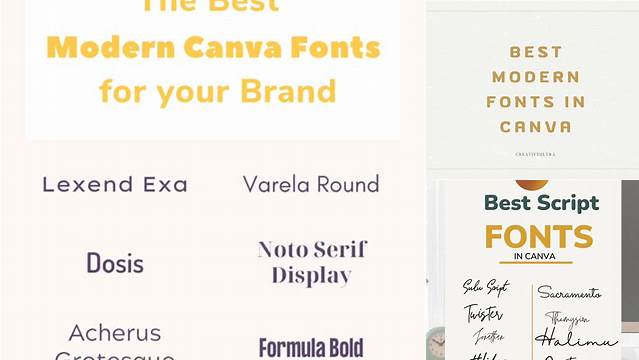
Bold Modern Fonts: Design Guide For Canva
Introduction: Unleash Your Creativity with Bold Modern Fonts
Hey guys! Are you ready to dive into the world of typography and discover how bold modern fonts can transform your designs in Canva? Typography is more than just choosing a pretty typeface; it's about conveying a message, evoking emotions, and creating a visual hierarchy that guides the viewer's eye. In Canva, the right font can make all the difference, turning a good design into a great one. Whether you're crafting social media graphics, designing presentations, or creating marketing materials, selecting the perfect font is crucial. Bold fonts, in particular, are fantastic for making a statement, grabbing attention, and adding a touch of contemporary flair to your projects. They command attention and convey confidence. In this article, we'll explore some of the best bold modern fonts available in Canva, discuss how to effectively use them, and provide practical tips for incorporating them into your designs. We’ll also look at font pairings, which is a critical aspect of design harmony. Combining a bold font with a lighter, more subtle typeface can create a dynamic contrast that enhances readability and visual appeal. So, buckle up, and let's explore the exciting realm of bold modern fonts in Canva to elevate your design game!
Why Choose Bold Fonts for Your Designs?
Why should you even bother with bold fonts in the first place? Well, think of it this way: your design is a stage, and your text is the star performer. Bold fonts are like the lead actor—they demand attention, command the scene, and deliver the key messages with impact. Bold fonts are incredibly versatile and can be used in various design contexts. They are perfect for headlines, titles, and call-to-action buttons, where you want to make a strong statement. Imagine a poster for a music festival; a bold font can shout out the headliner's name and instantly grab your attention. Or think about a website’s hero section, where a bold headline can convey the brand’s core message within seconds. Beyond grabbing attention, bold fonts also play a crucial role in creating visual hierarchy. In any design, you want to guide the viewer’s eye through the information in a logical order. By using bold for the most important elements, you can instantly signal their significance. This helps the viewer quickly understand the main points and navigate the design effectively. Moreover, bold fonts add a touch of modernity and sophistication to your designs. They often have clean lines and strong forms, making them ideal for contemporary aesthetics. Whether you're designing for a tech startup, a fashion brand, or a creative agency, incorporating bold modern fonts can give your work a cutting-edge feel. So, if you're looking to make a statement, establish a clear visual hierarchy, and infuse your designs with a modern vibe, bold fonts are definitely your go-to choice. They're not just about making text bigger; they're about making your message stronger.
Top Bold Modern Fonts Available in Canva
Okay, let's get to the fun part – diving into the best bold modern fonts that Canva has to offer! Canva's font library is a treasure trove, packed with options that can cater to any design style. But with so many choices, it can be a tad overwhelming. That's why we've curated a list of some standout bold fonts that are perfect for modern designs. First up, we have Montserrat. This is a geometric sans-serif font that exudes contemporary elegance. Its clean lines and strong presence make it an excellent choice for headlines, logos, and branding materials. The bold version of Montserrat is particularly impactful, giving your text a confident and assertive feel. Next, there's Oswald, another fantastic sans-serif option. Oswald has a slightly condensed look, which makes it great for fitting more text into tight spaces without sacrificing readability. Its bold variant is perfect for headlines and subheadings, adding a touch of sophistication to your designs. If you're looking for something with a bit more character, check out Raleway. This elegant sans-serif font has a distinctive style with slightly elongated letterforms. The bold version of Raleway is both stylish and impactful, making it suitable for a variety of design projects, from websites to print materials. For a font that's both modern and approachable, Lato is an excellent choice. Its semi-rounded details give it a friendly feel, while its strong structure ensures readability. The bold version of Lato is perfect for body text, headlines, and everything in between. And let's not forget Poppins, a geometric sans-serif font that's incredibly versatile. Its clean, minimalist design makes it a great option for a wide range of projects. The bold version of Poppins is particularly effective for making a statement without being overly assertive. These are just a few of the many amazing bold modern fonts available in Canva. Each font has its unique personality and strengths, so experiment with them to find the perfect fit for your designs.
How to Effectively Use Bold Fonts in Your Designs
Now that we've explored some amazing bold fonts, let's talk about how to use them effectively. Slapping a bold font on everything won't magically make your design look amazing – it's all about strategy and balance. The key to using bold fonts effectively is to use them sparingly and strategically. Overusing bold fonts can actually diminish their impact and make your design look cluttered and overwhelming. Instead, focus on using bold to highlight key elements and create a clear visual hierarchy. Think of bold fonts as your design's spotlight. You want to shine that spotlight on the most important parts of your message, like headlines, titles, and calls to action. For example, in a poster design, the headline should definitely be in a bold font to grab attention. In a website layout, use bold for section titles to help users quickly scan the page. Another crucial aspect of using bold fonts is font pairing. A bold font rarely works well on its own; it needs a supporting cast of other fonts to create a harmonious design. The general rule of thumb is to pair a bold font with a lighter, more neutral font for body text. This creates a contrast that makes the bold elements stand out while ensuring that the overall text is easy to read. For instance, you might pair a bold Montserrat headline with a regular Lato body text. This combination gives you a clean, modern look with excellent readability. Consider the context of your design when choosing a bold font. The message you're trying to convey and the overall tone of your design should influence your font choice. A very bold, aggressive font might be perfect for a rock concert poster, but it would be out of place in a brochure for a spa. Think about the emotions and associations that different fonts evoke and choose one that aligns with your brand and message. Finally, always pay attention to readability. While bold fonts are great for grabbing attention, they can become tiring to read in large blocks of text. Use them judiciously and make sure your overall design is easy on the eyes. Adjust the font size, line height, and letter spacing to optimize readability and ensure that your message comes across clearly. By following these tips, you can harness the power of bold fonts to create designs that are both visually striking and highly effective.
Font Pairing: Combining Bold Fonts with Other Styles
Font pairing is the secret sauce that elevates a good design to a fantastic one. It's all about finding the perfect harmony between different typefaces to create a visual symphony. When it comes to bold fonts, pairing them effectively is crucial because they have such a strong presence. You need to balance that boldness with other fonts that complement and enhance, rather than compete with, the bold elements. The most common and effective strategy for font pairing with bold fonts is to use a high-contrast approach. This means pairing your bold font with a lighter, more neutral font. The contrast in weight and style creates visual interest and helps establish a clear hierarchy. For example, a bold sans-serif font like Montserrat Bold pairs beautifully with a lighter sans-serif font like Open Sans Regular. The bold Montserrat commands attention in headlines, while the Open Sans provides a clean and readable body text. Another great combination is pairing a bold serif font with a sans-serif font. Serifs often have a more traditional and elegant feel, while sans-serifs are typically more modern and minimalist. This contrast can add sophistication and depth to your design. Consider pairing a bold serif like Playfair Display Bold with a sans-serif like Lato Regular. The Playfair Display adds a touch of elegance to headings, while Lato ensures readability in the body text. Within the same font family, you can also create effective pairings by using different weights and styles. For instance, you might use a bold version of a font for headlines and a regular or light version for body text. This creates a cohesive look while still maintaining visual hierarchy. Experimenting with different font sizes and spacing is another key aspect of font pairing. Make sure your bold elements are sized appropriately to stand out, but not so large that they overwhelm the other text. Adjust the line height and letter spacing to ensure readability and create a visually pleasing layout. Ultimately, the best way to master font pairing is through experimentation and practice. Try out different combinations, see what works, and don't be afraid to break the rules. The goal is to create a design that is both visually appealing and highly effective in communicating your message. By understanding the principles of font pairing, you can make your bold fonts truly shine and create designs that leave a lasting impression.
Practical Tips for Using Bold Modern Fonts in Canva
Alright, let's get down to the nitty-gritty with some practical tips for using bold modern fonts in Canva. Canva is a fantastic tool, but like any design software, it's all about knowing the tricks of the trade to get the best results. So, here are some actionable tips to help you make the most of bold fonts in your Canva projects. First and foremost, always start with a clear understanding of your design goals. What message are you trying to convey? Who is your target audience? The answers to these questions will help guide your font choices. A bold font that works for a tech startup might not be the best fit for a children's book. Think about the overall tone and style you want to achieve and select fonts that align with that vision. When you're working in Canva, take advantage of the platform's font preview feature. Canva allows you to quickly see how a font will look in your design without having to commit to it. This is invaluable for experimenting with different bold fonts and font pairings. Try out several options and see which ones resonate with you. Don't be afraid to mix and match! Canva also offers a wide range of templates that can serve as a great starting point for your designs. Many of these templates already incorporate bold fonts effectively, giving you a sense of how they can be used in different contexts. Feel free to adapt these templates to your own needs, but pay attention to the font choices and why they work. Another pro tip is to use Canva's text formatting options to fine-tune your bold fonts. Adjust the font size, line height, letter spacing, and text alignment to create a polished and professional look. These small tweaks can make a big difference in the overall impact of your design. Pay attention to the color of your bold fonts as well. Color can have a significant impact on how a font is perceived. A bold font in a vibrant color will stand out even more, while a bold font in a more muted color can create a sense of understated elegance. Consider the color palette of your design and choose font colors that complement it. Finally, always get feedback on your designs. Share your work with others and ask for their opinions on your font choices. Fresh eyes can often spot things you might have missed, and constructive criticism can help you refine your designs and make them even better. By following these tips, you'll be well on your way to mastering the art of using bold modern fonts in Canva.
Conclusion: Embrace the Power of Bold Fonts in Your Designs
So, guys, we've reached the end of our journey into the world of bold modern fonts in Canva! We've explored why bold fonts are so effective, looked at some top font choices, discussed how to use them strategically, and shared practical tips for making them shine in your designs. The key takeaway here is that bold fonts are a powerful tool in your design arsenal. They're not just about making text bigger; they're about making your message stronger, clearer, and more impactful. Whether you're designing social media graphics, presentations, websites, or marketing materials, bold fonts can help you grab attention, establish a visual hierarchy, and convey your message with confidence. Remember, the effective use of bold fonts is all about balance and strategy. Use them judiciously to highlight key elements and create contrast, but avoid overusing them, as this can diminish their impact. Font pairing is crucial, so experiment with different combinations to find the perfect harmony between bold fonts and their supporting typefaces. Canva offers a fantastic range of bold modern fonts, so explore the library and discover the ones that resonate with your style and brand. And don't forget to leverage Canva's features, such as the font preview tool and templates, to streamline your design process. Most importantly, have fun and be creative! Design is all about experimentation and self-expression. Don't be afraid to try new things, break the rules, and develop your unique style. By embracing the power of bold fonts and honing your design skills, you can create visuals that are not only beautiful but also highly effective in communicating your message. So go forth, unleash your creativity, and let bold fonts be your secret weapon in the world of design!